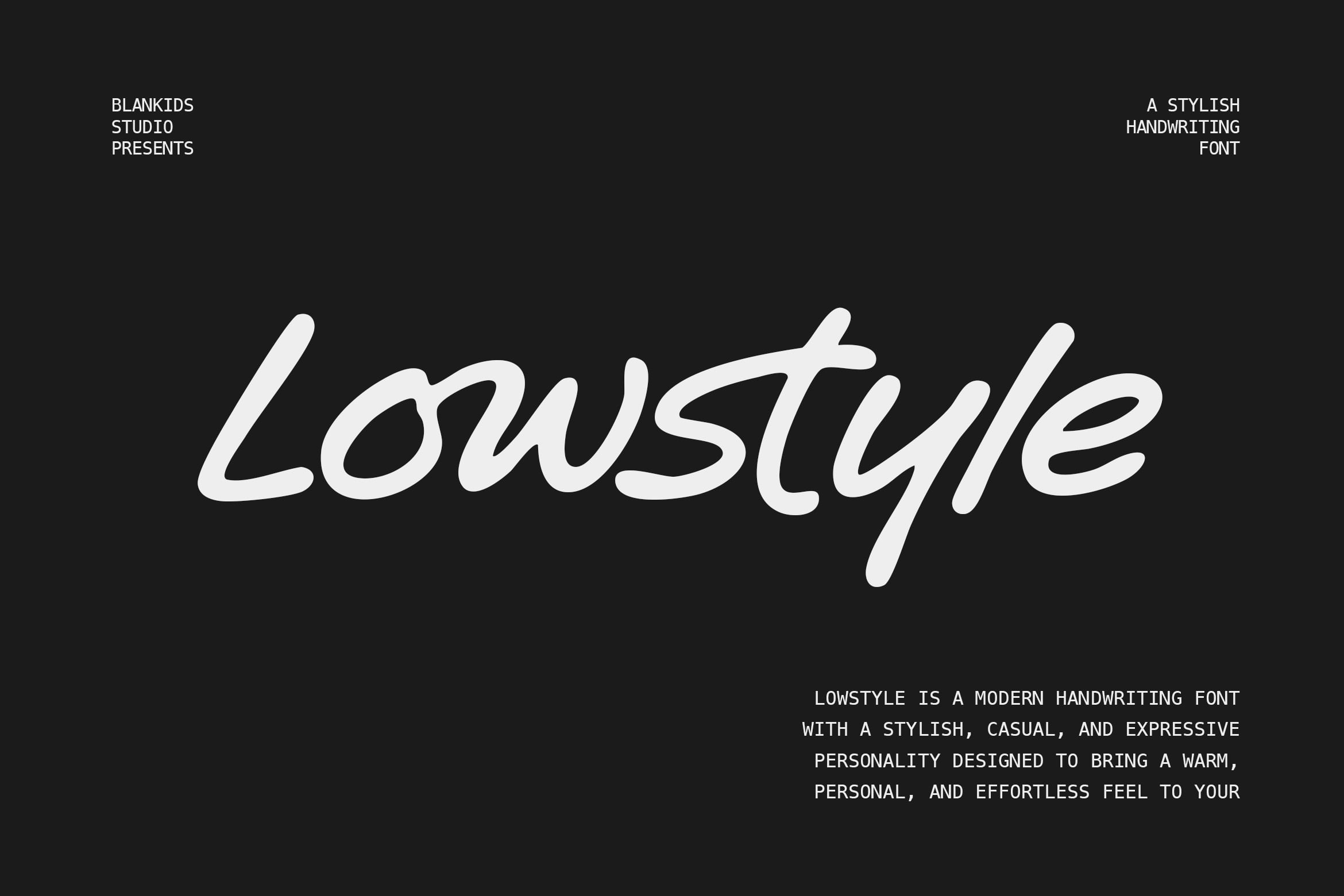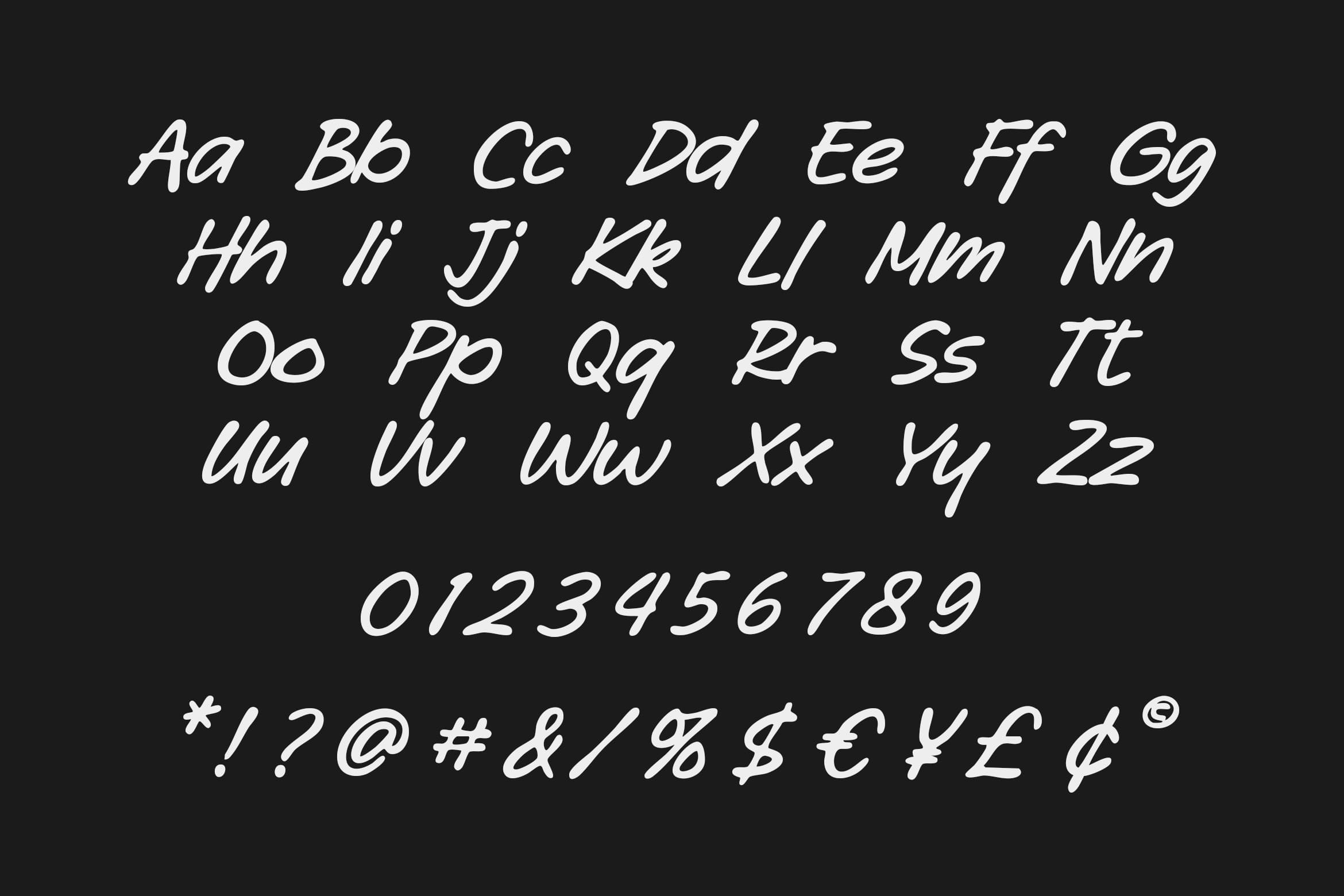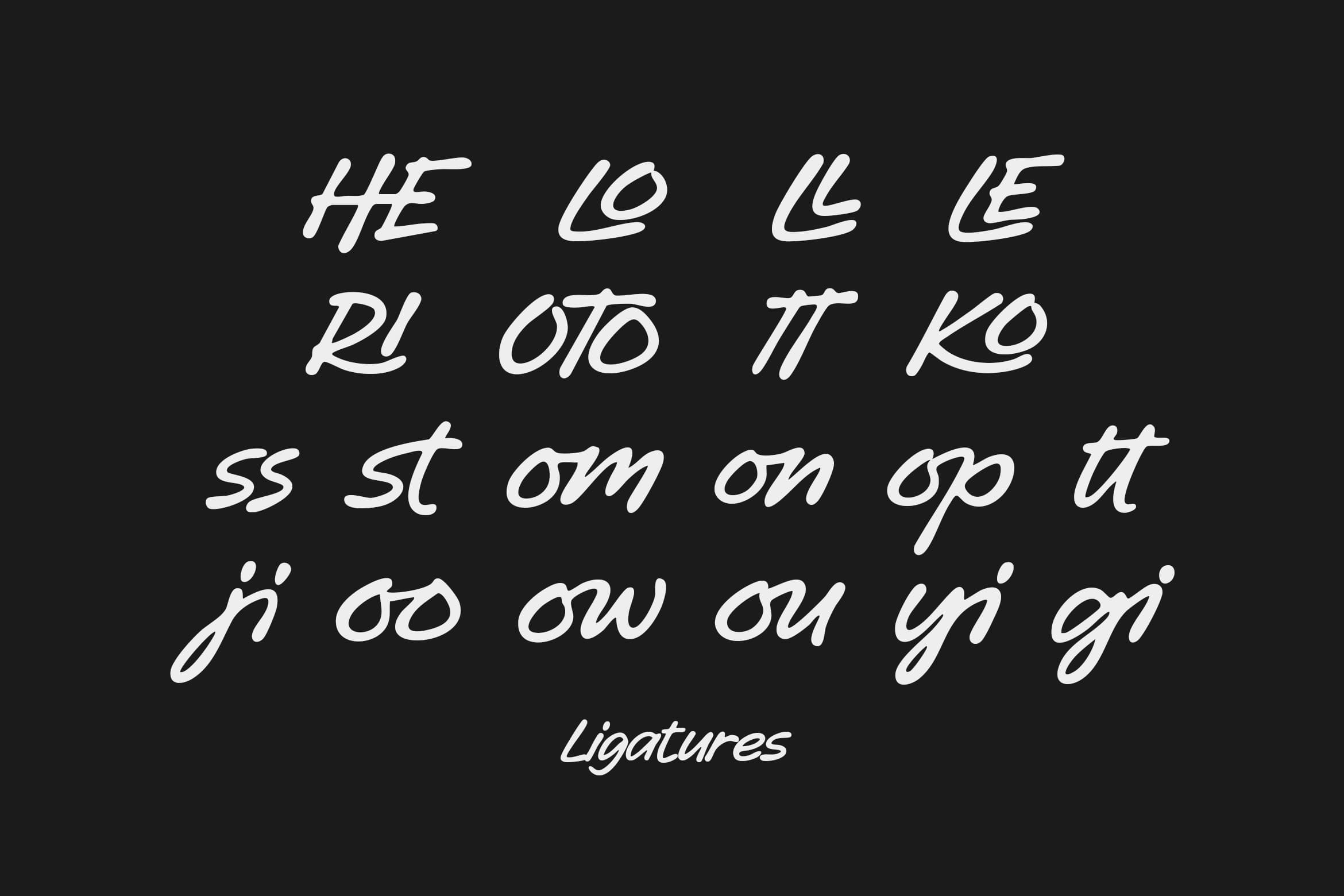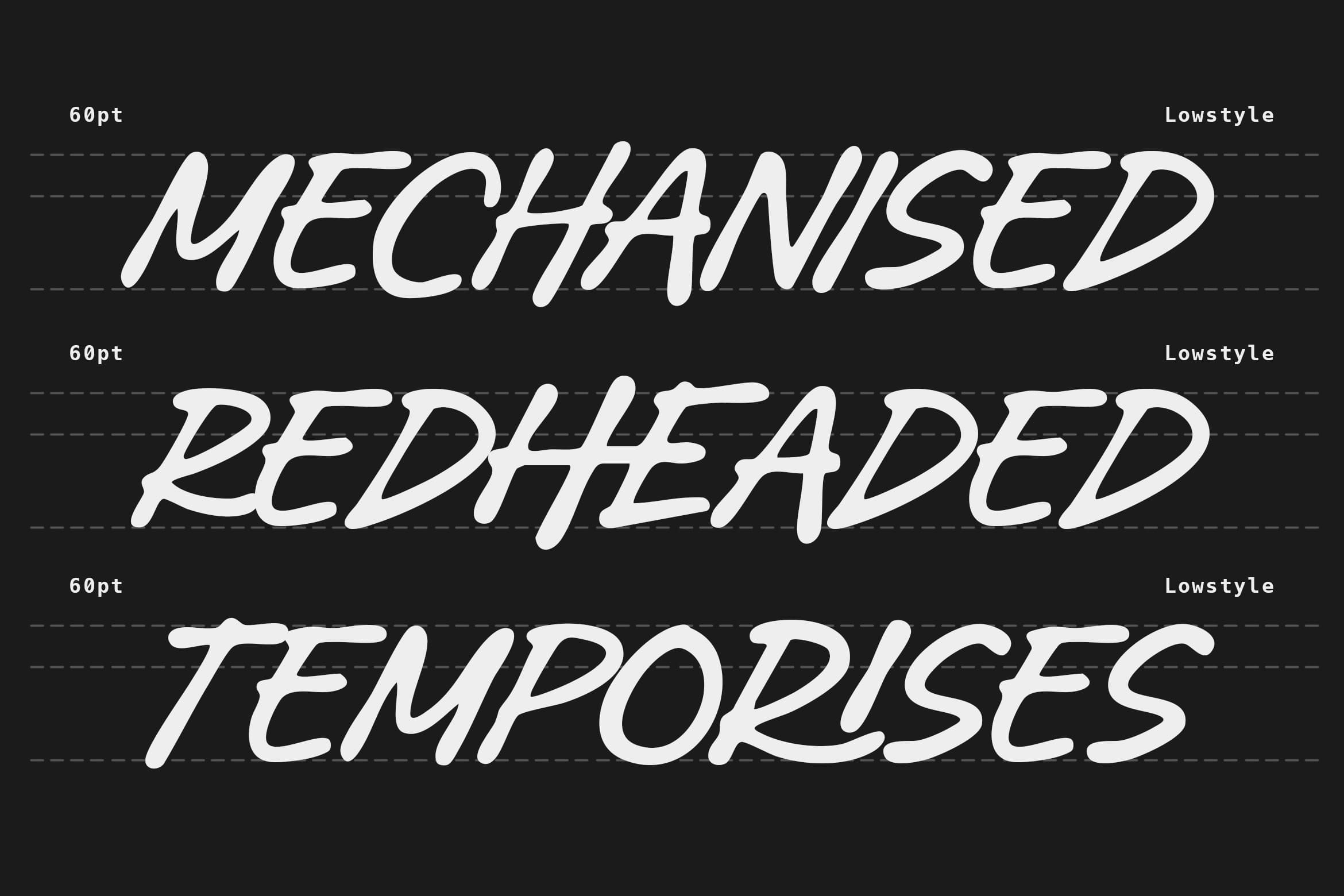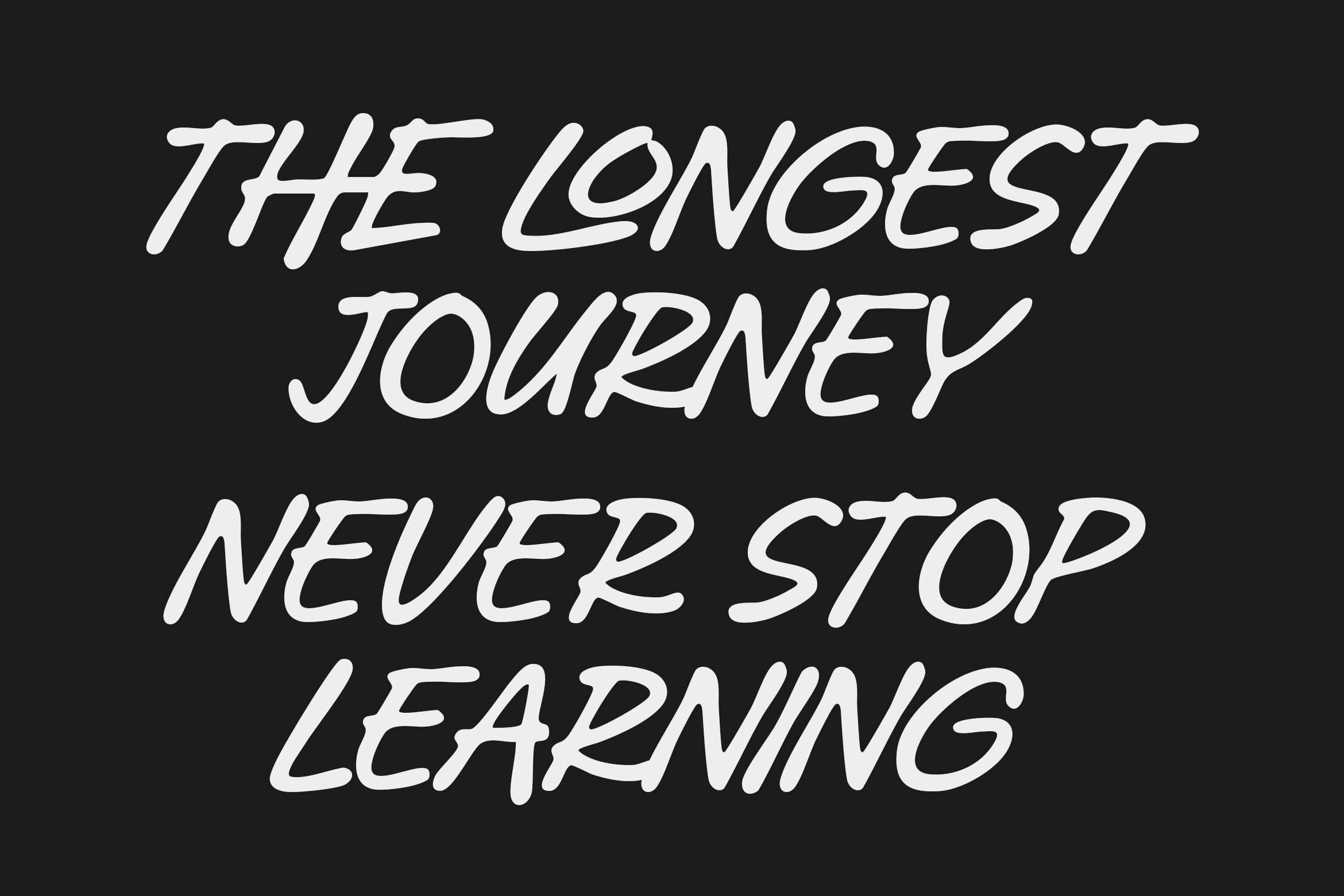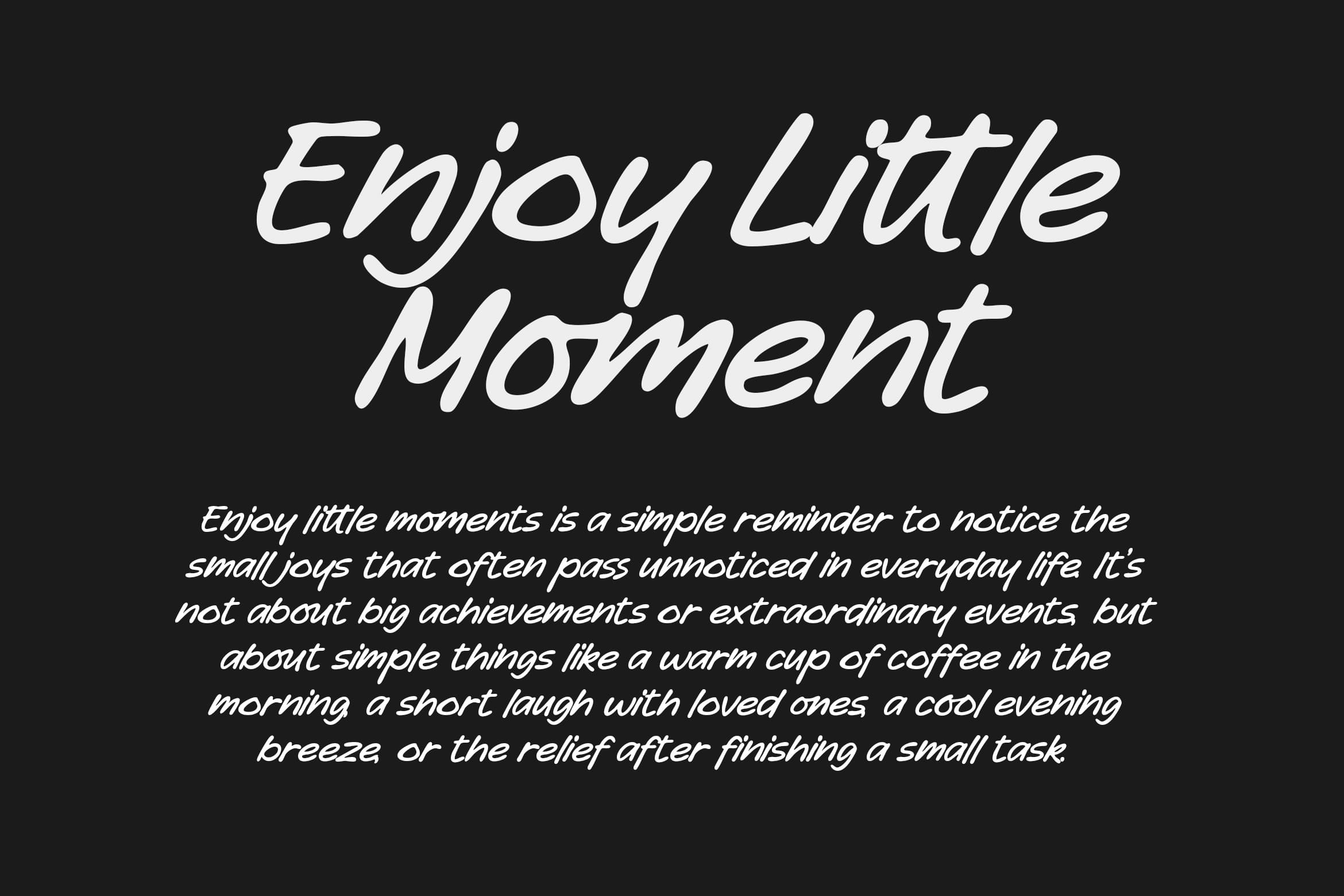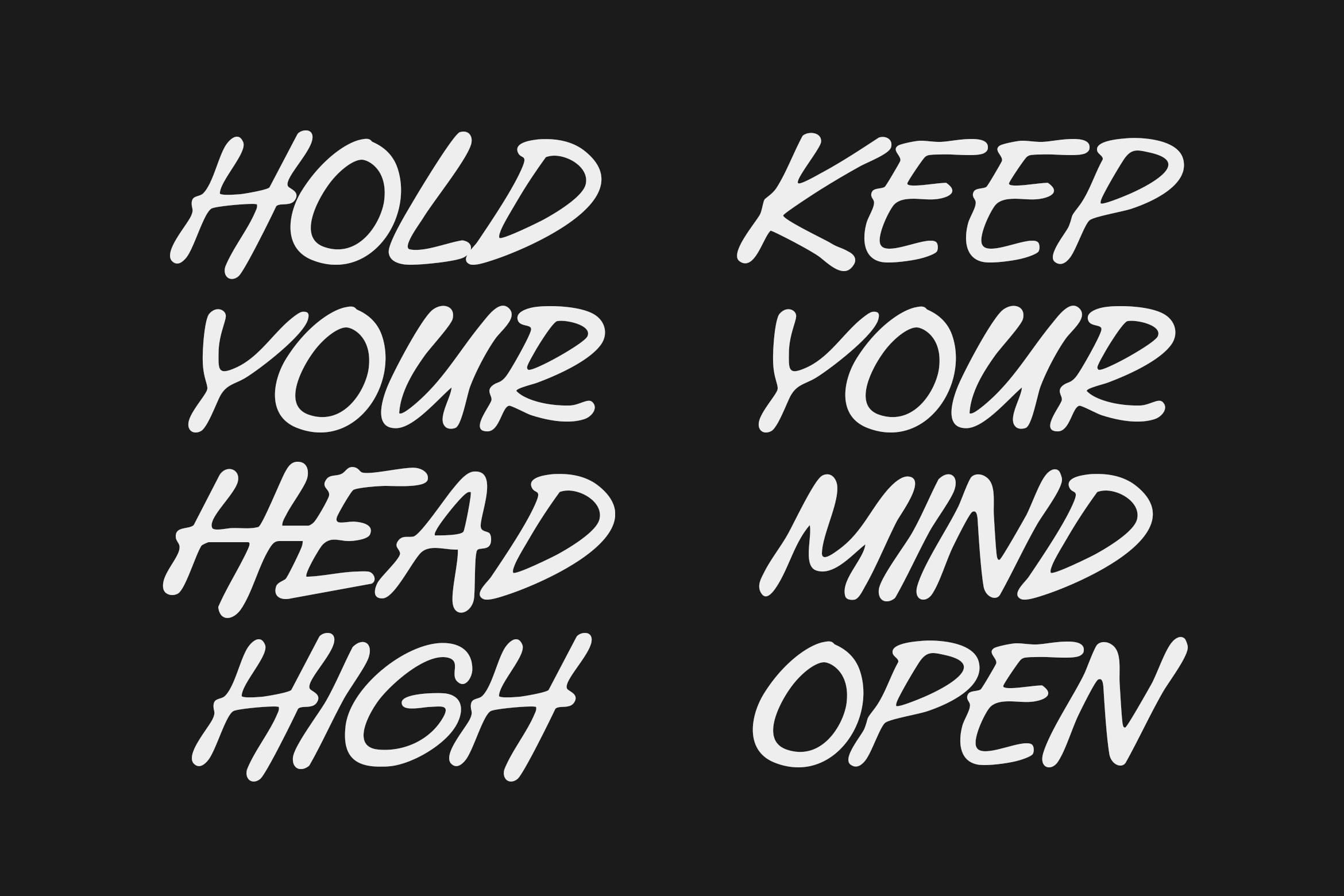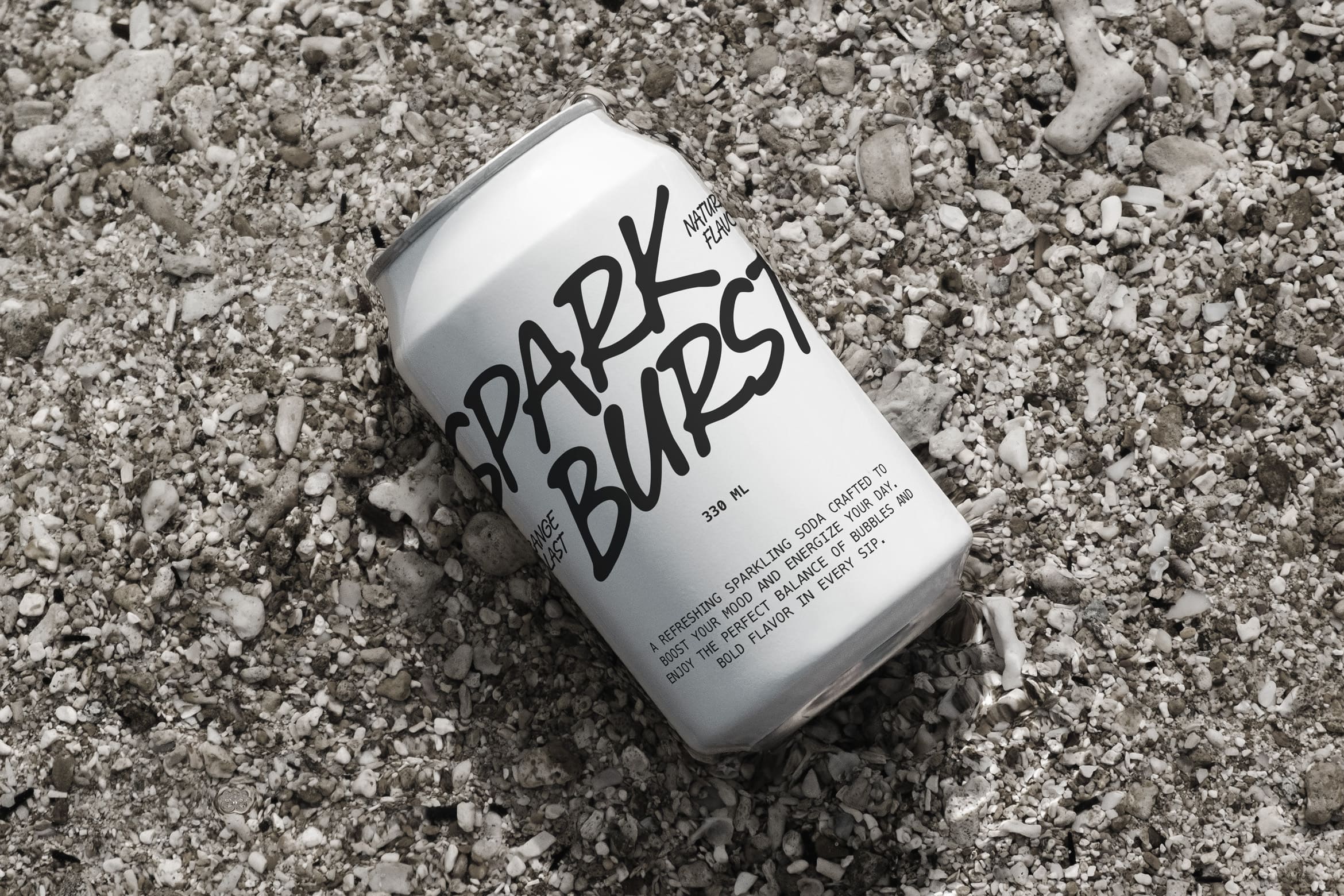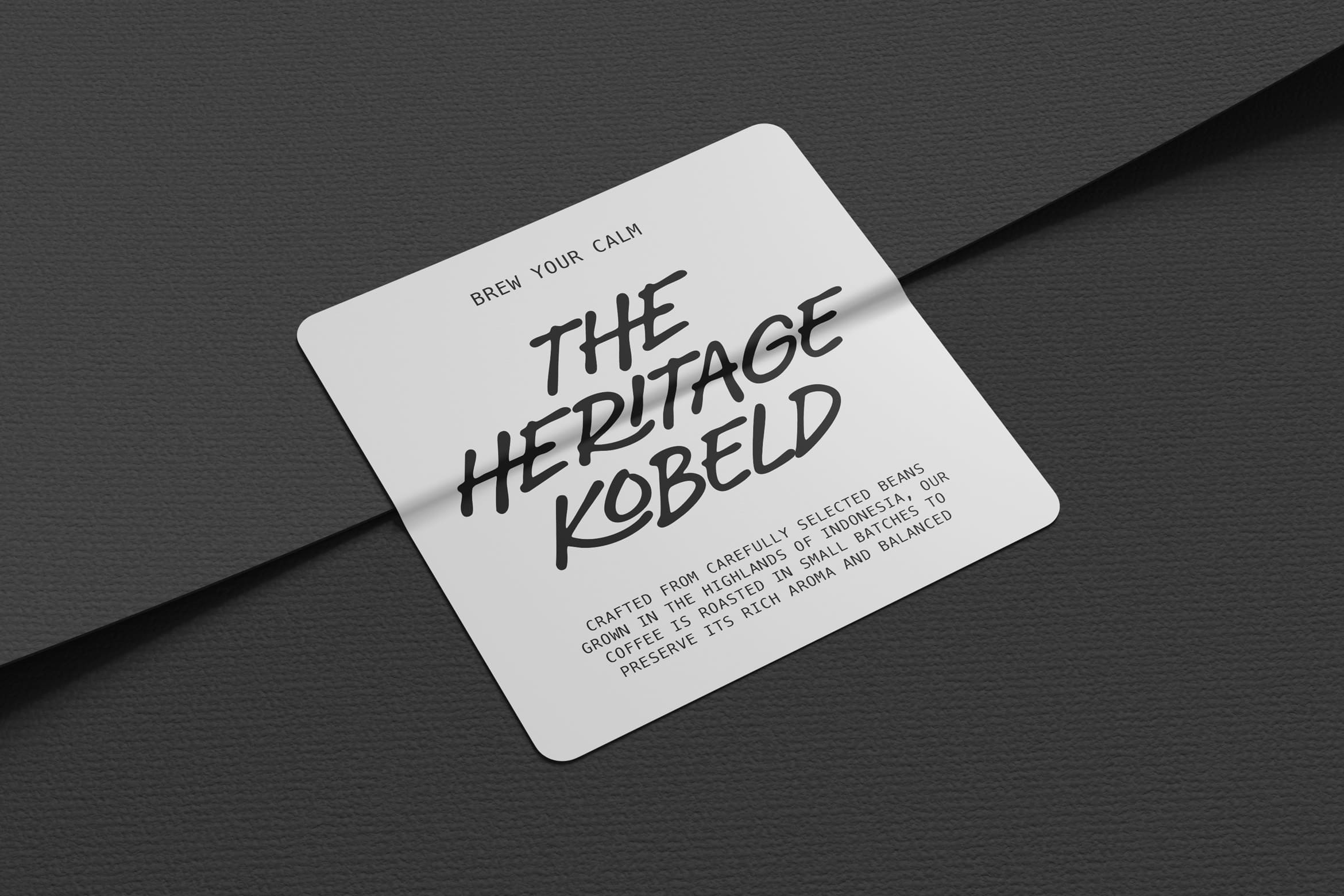
Lowstyle is a modern handwriting font with a stylish, casual, and expressive personality designed to bring a warm, personal, and effortless feel to your..designs. Its smooth flowing strokes mimic natural handwriting while maintaining great readability, making it perfect for both creative and commercial projects.
This font blends friendly, trendy, and modern script aesthetics into one versatile typeface that instantly makes designs feel more human, lively, and relatable.